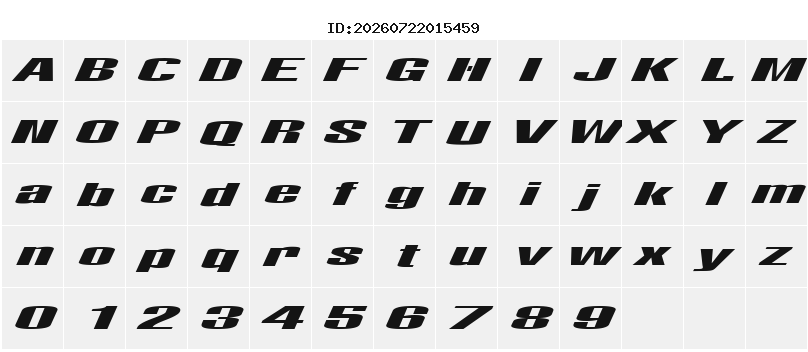
FZ BASIC 9 ITALIC Preview
About FZ BASIC 9 ITALIC.ttf
FZ BASIC 9 ITALIC.ttf is a modern, elegant sans-serif font designed for ultimate readability and visual harmony. Perfect for branding, headlines, web design, and print materials.